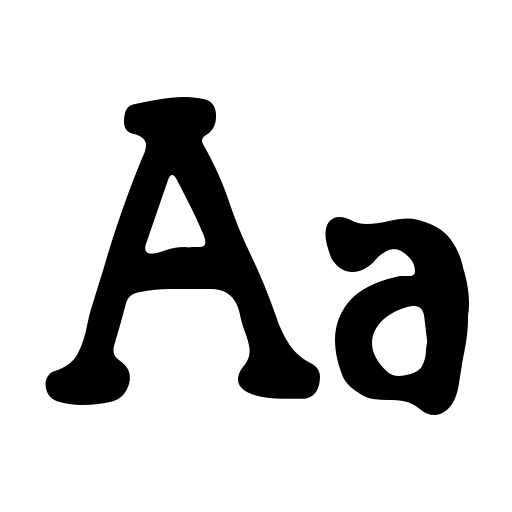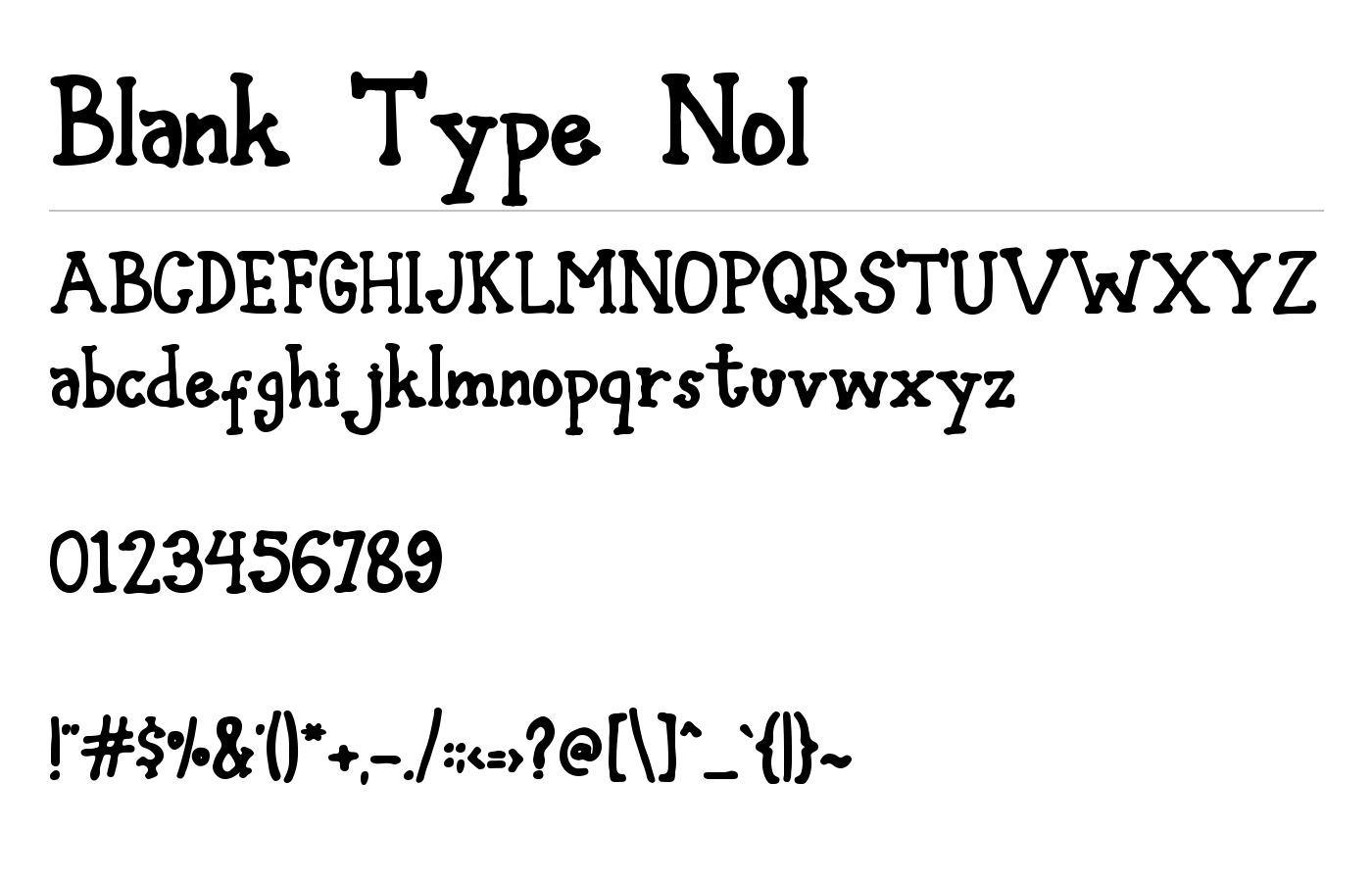
Blank Type Nol is a quirky serif font with a playful and hand-drawn feel, featuring irregular strokes and slightly whimsical shapes that give it a unique, informal character. Its moderate weight and medium contrast combined with distinctive serifs make it ideal for creative projects, casual branding, or headlines that want to convey a friendly, approachable vibe. This font works especially well in contexts where a fun, personal touch is needed, such as children’s books, posters, and artistic packaging.
Blank Type Nol Font
About Blank Type Nol Font
| Designer | Hadjar Creative |